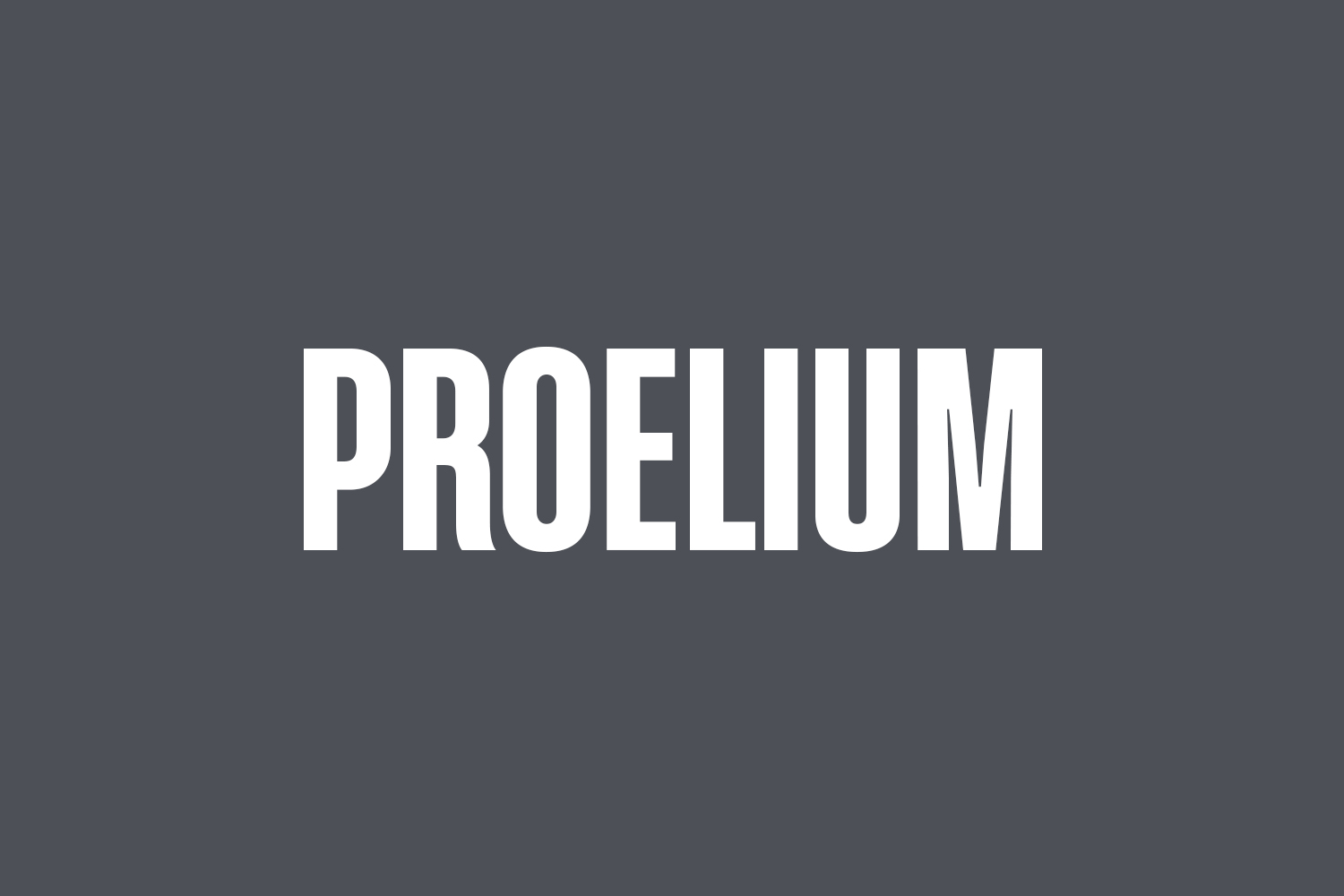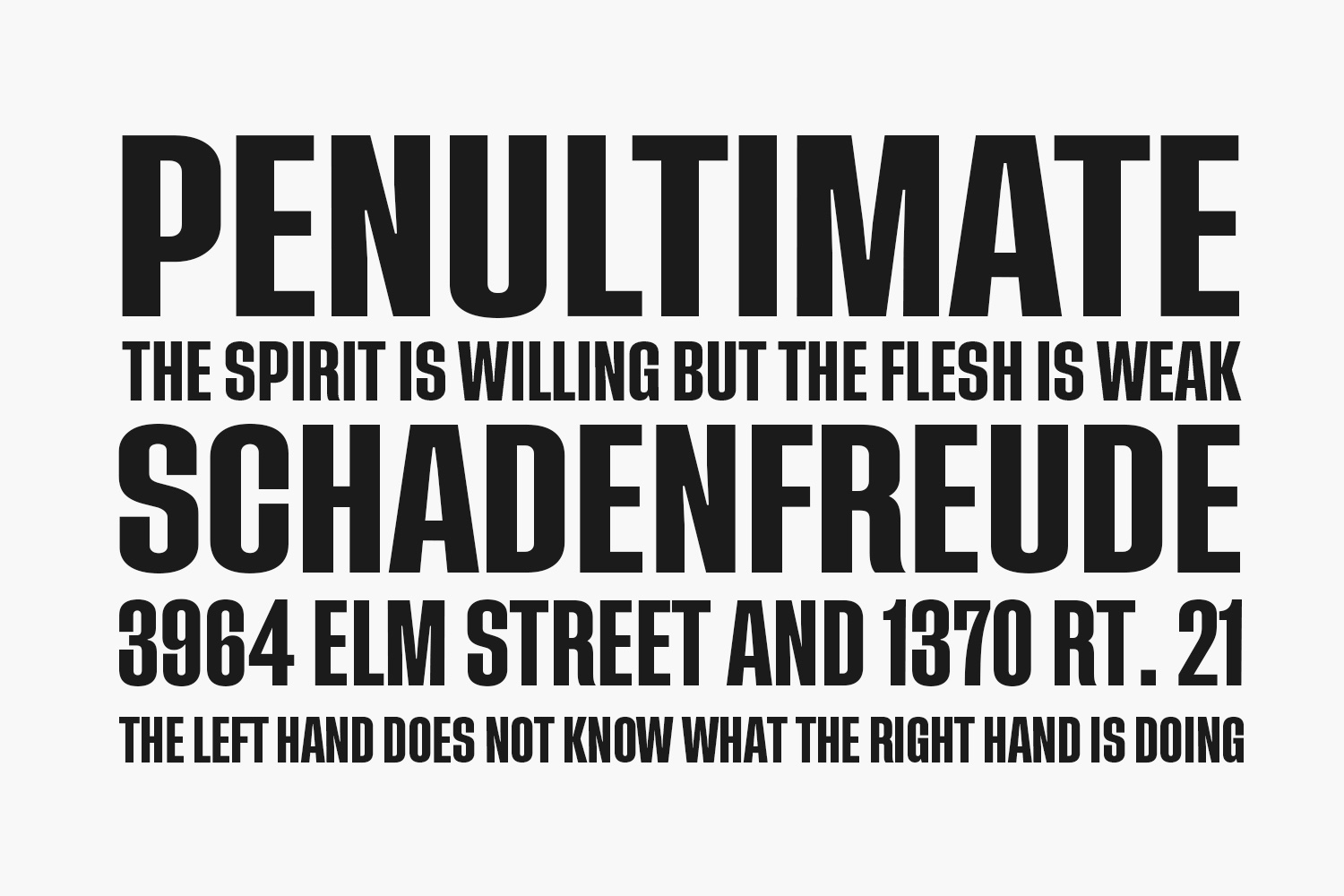
Proelium is a strong, bold, and condensed sans‑serif display font created by GigaType. Designed to command attention, its tall uppercase forms and tight spacing make it ideal for headlines, posters, logos, packaging, editorial layouts, and branding. Available in multiple styles (regular, italic, sharp, sharp italic), it’s distributed under a FFEULA and is free for personal use. Commercial licensing can be obtained via the designer’s DeviantArt page.
Why Choose Proelium?
- Bold Display Presence: High-impact condensed forms ideal for big headlines.
- Multiple Styles: Includes regular, italic, sharp, and sharp italic variants.
- Modern & Clean: A sleek sans‑serif suitable for professional and contemporary designs.
- Extensive Language Support: Includes Latin Extended-A, supporting many Western languages.
Where to Use Proelium?
- Posters & Flyers: Bold headings that grab attention.
- Branding & Logos: Strong condensed letterforms that create memorable identities.
- Packaging & Labels: Impactful type for product names and displays.
- Editorial Layouts: Headlines in magazines, brochures, and websites.
- Digital Graphics: Standout text overlays for social media, hero banners, and ads.
Design Tips with Proelium
Use large sizes (24 pt/32 px+) to showcase the tall, bold forms. Combine with a neutral sans‑serif like Headwar or Magical Childhood for body text. Leveraging the italic or sharp variants adds visual hierarchy—sharp for emphasis, italic for dynamic flair. Works best with high-contrast palettes and clean minimal layouts.
- Glyph Count: ~350 glyphs including uppercase, lowercase, numerals, punctuation – supports Basic Latin and Latin Extended‑A.